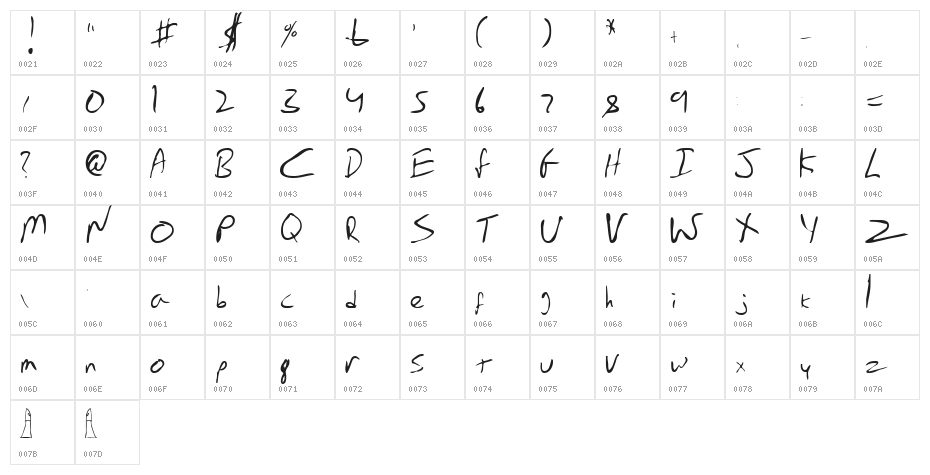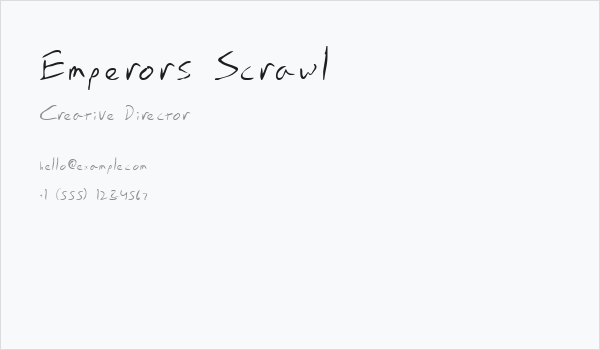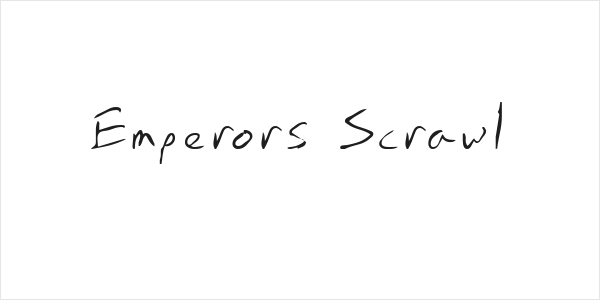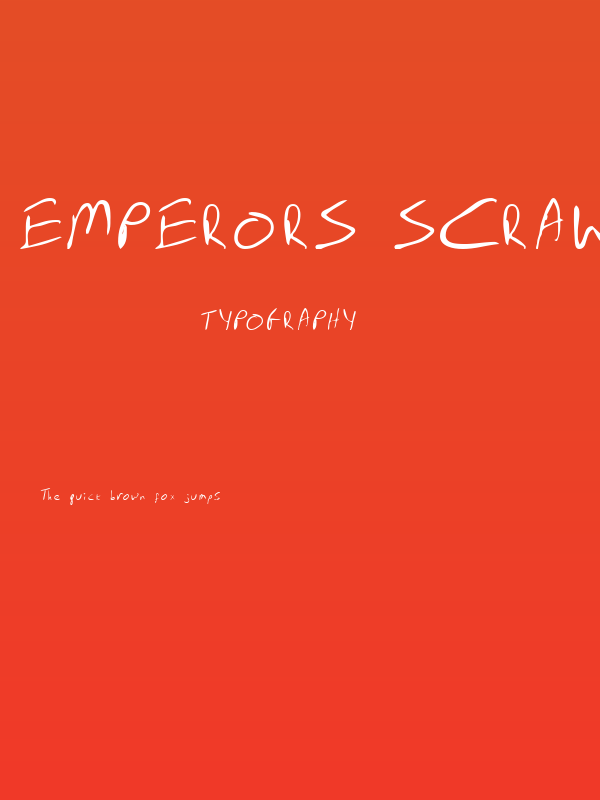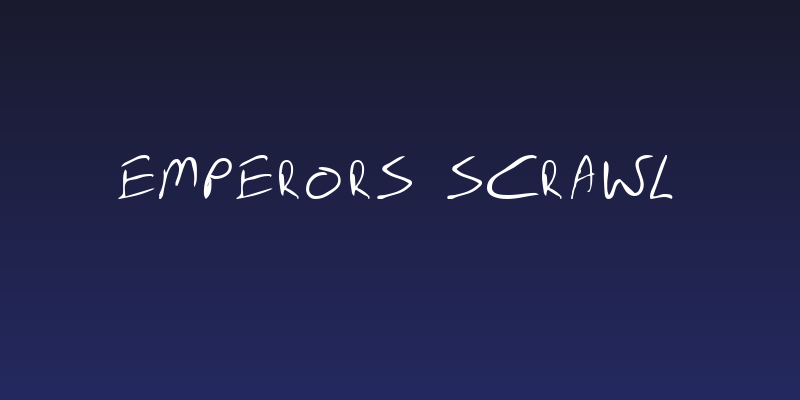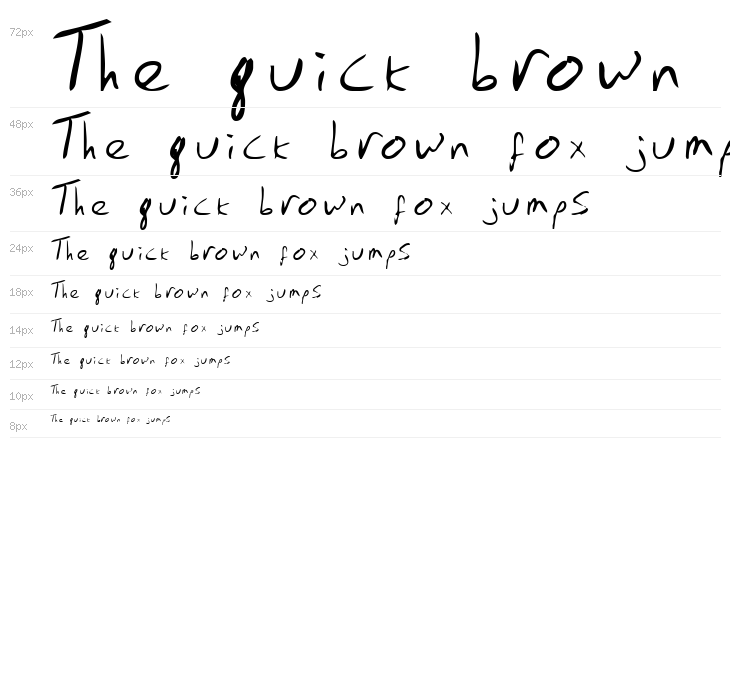
Emperors Scrawl Font
Emperors Scrawl Description
This font exudes a dynamic and expressive style, reminiscent of a handwritten scrawl with a touch of elegance. The letters are fluid and slightly irregular, giving a sense of movement and personality. The uppercase characters are bold and assertive, while the lowercase letters maintain a consistent flow, enhancing the handwritten feel. Numbers and special characters follow the same lively style, making the font versatile for creative projects. The overall appearance is both artistic and approachable, suitable for designs that require a personal touch.
| Use Case | Logos, Headlines, Artistic projects |
| Proposed Projects | Ideal for creative projects such as greeting cards, invitations, personal branding, and artistic posters. |